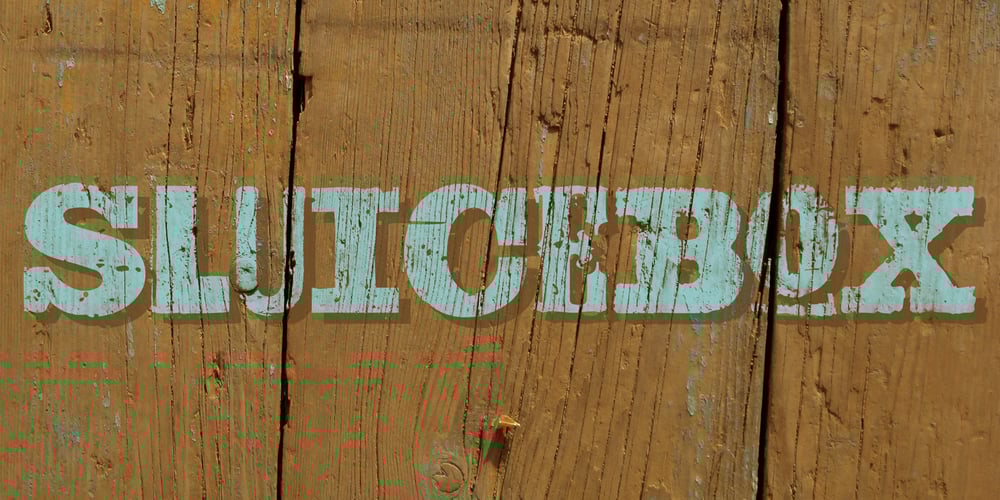
Sluicebox Font Family was designed by Stephen Miggas and published by Aerotype. Sluicebox contains 2 styles and family package options. Straight from the ‘extras’ drawer, the mismatched Sluicebox character set is comprised mainly of serif type specimens. The OpenType versions of Sluicebox have 52 ligature features that automatically substitute a unique pair of distressed characters when any upper or lower case letter is keyed twice in a row, as well as features for Old Style Numerals and Small Caps. Sluicebox Pro extends the character set to support Eastern European Latin, Baltic, Greek and Turkish.